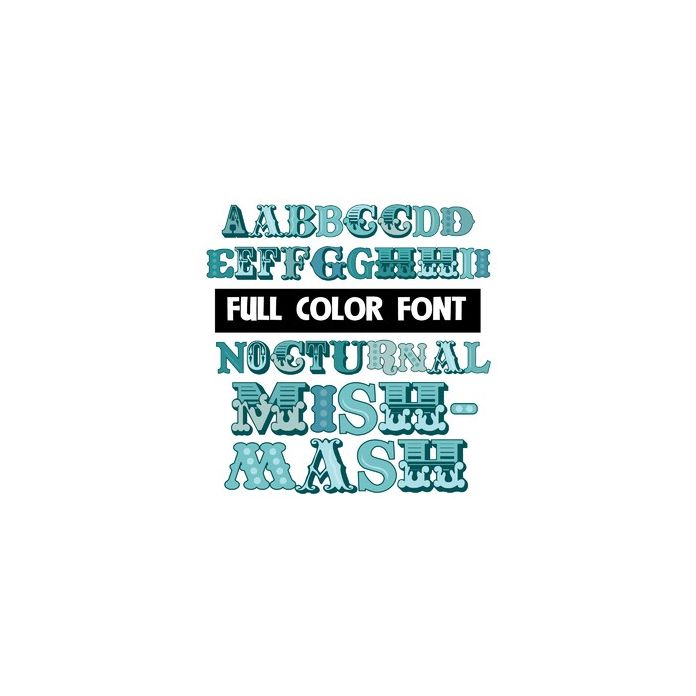
This full-color font features a night-time/blue color palette. This font works best for titles, displays, posters and more. Please note color fonts will show as black in non compatible programs. This font type is compatible with Silhouette Studio